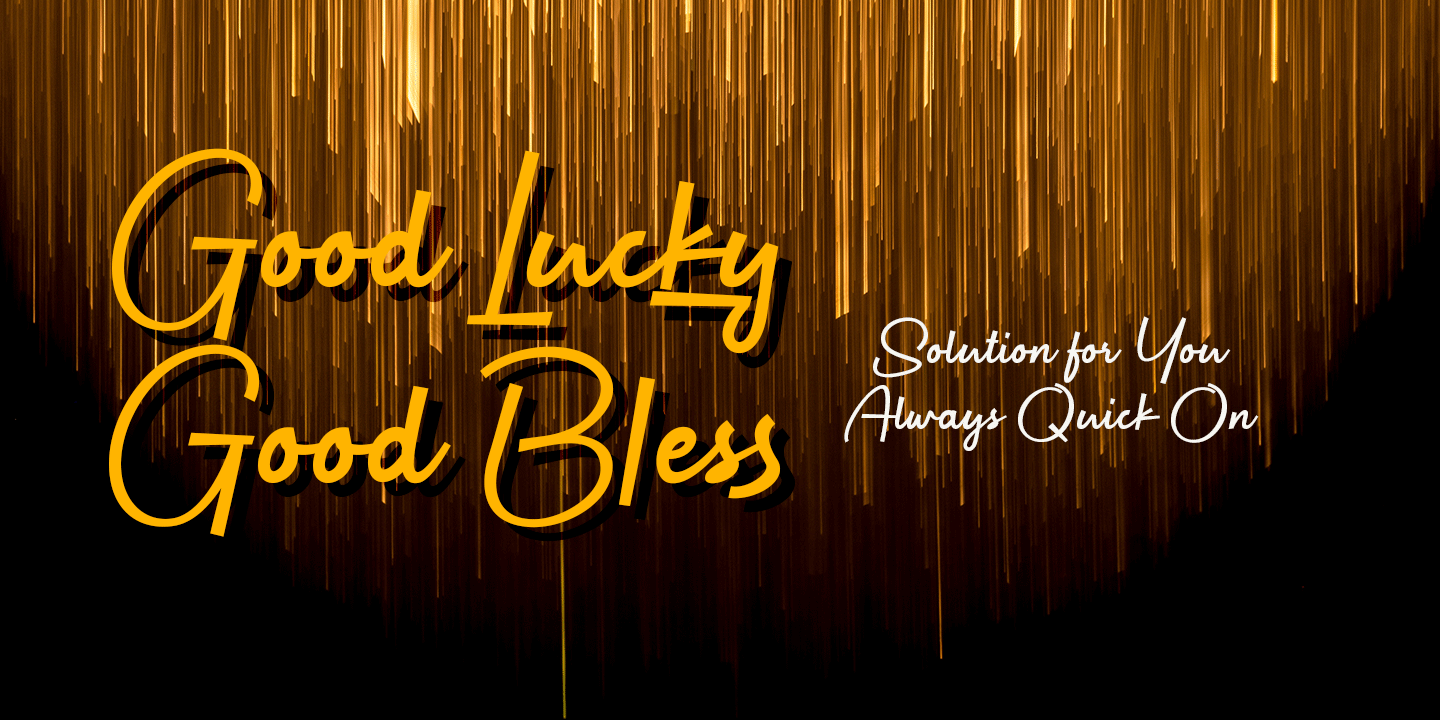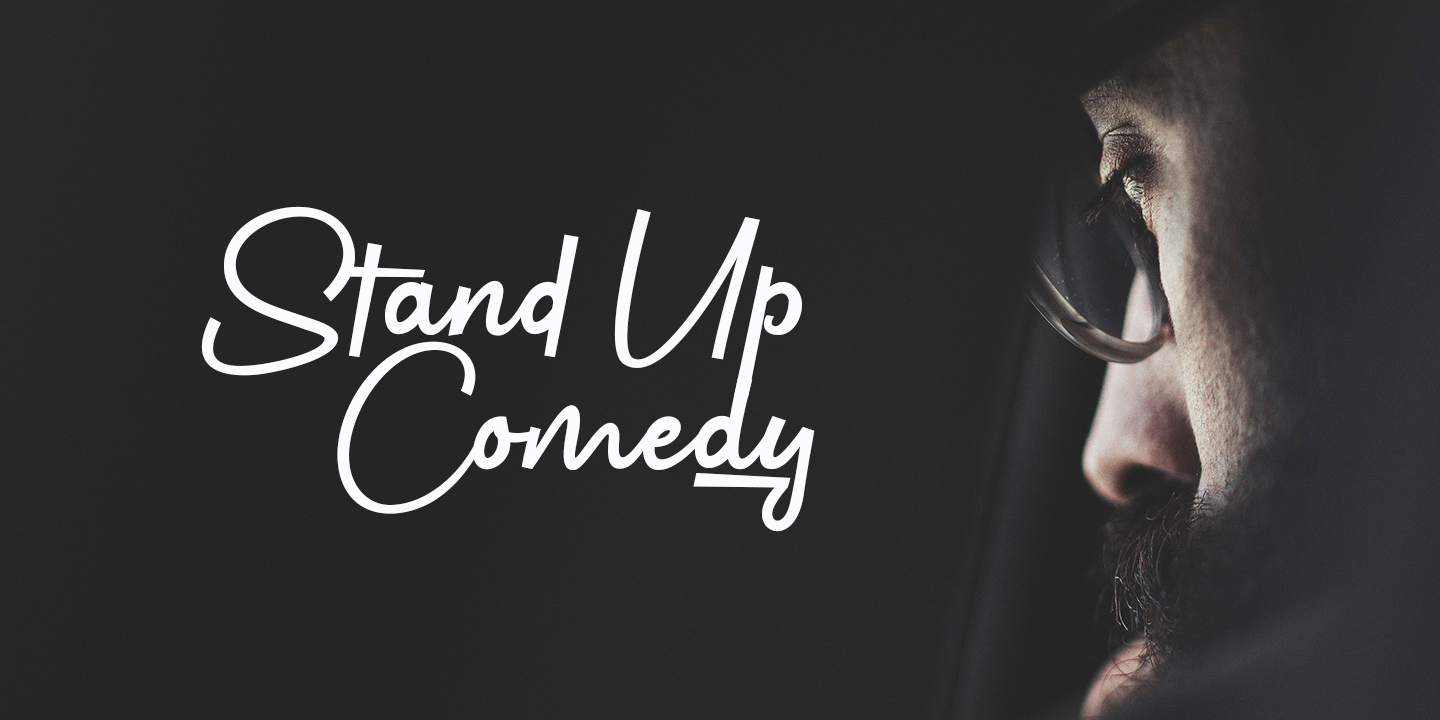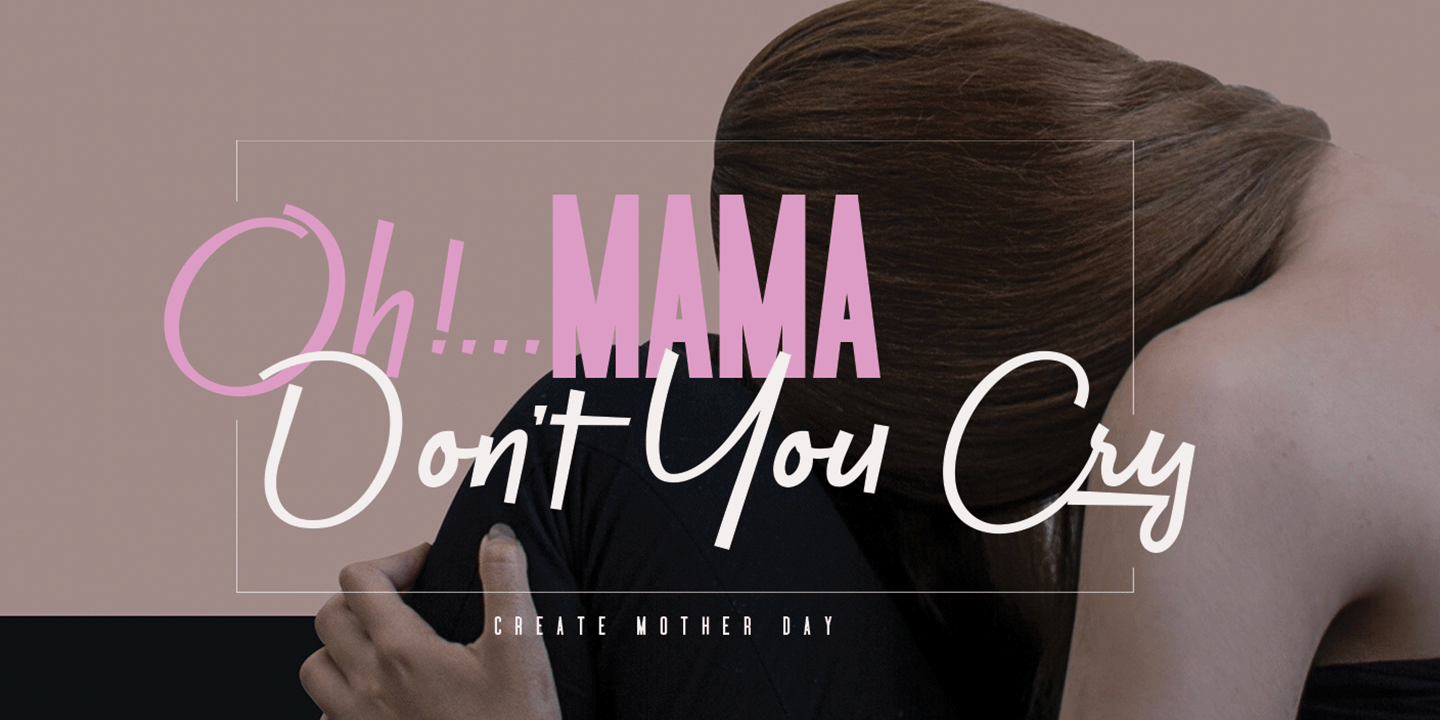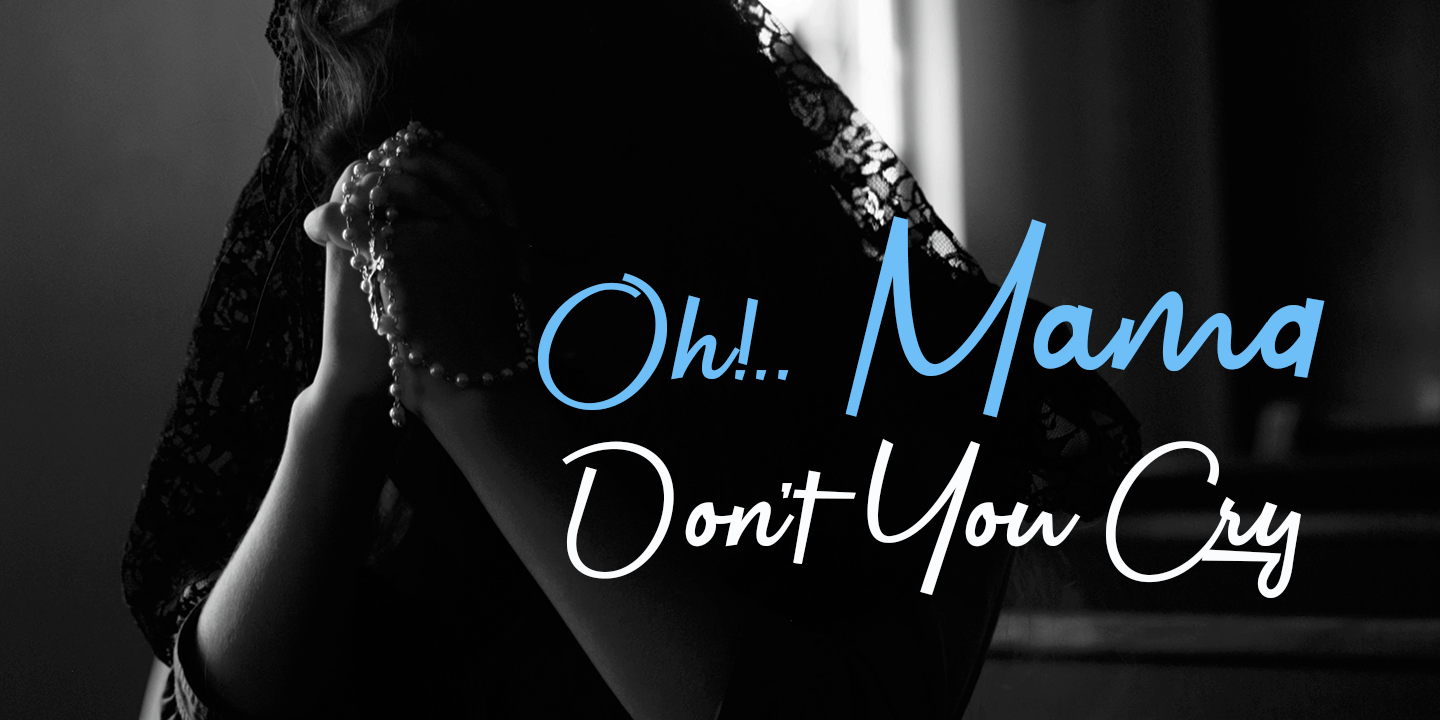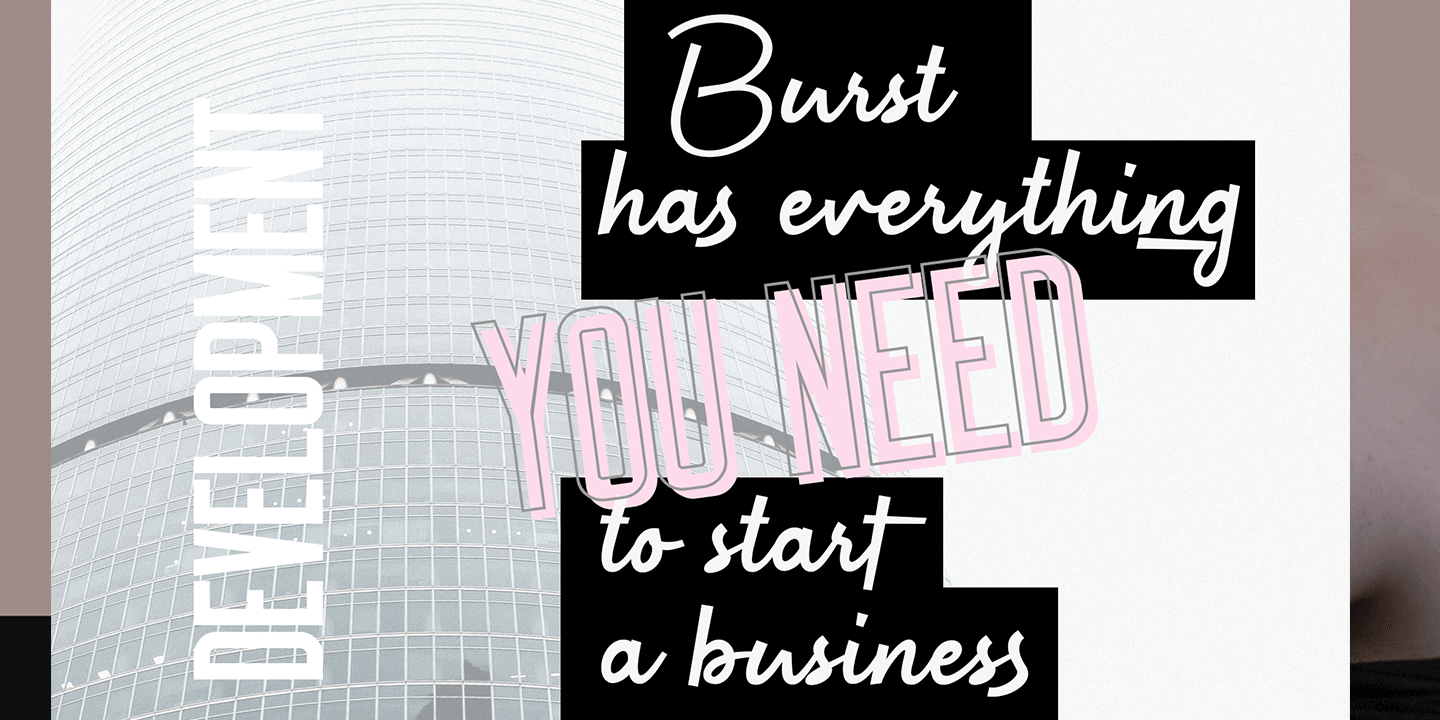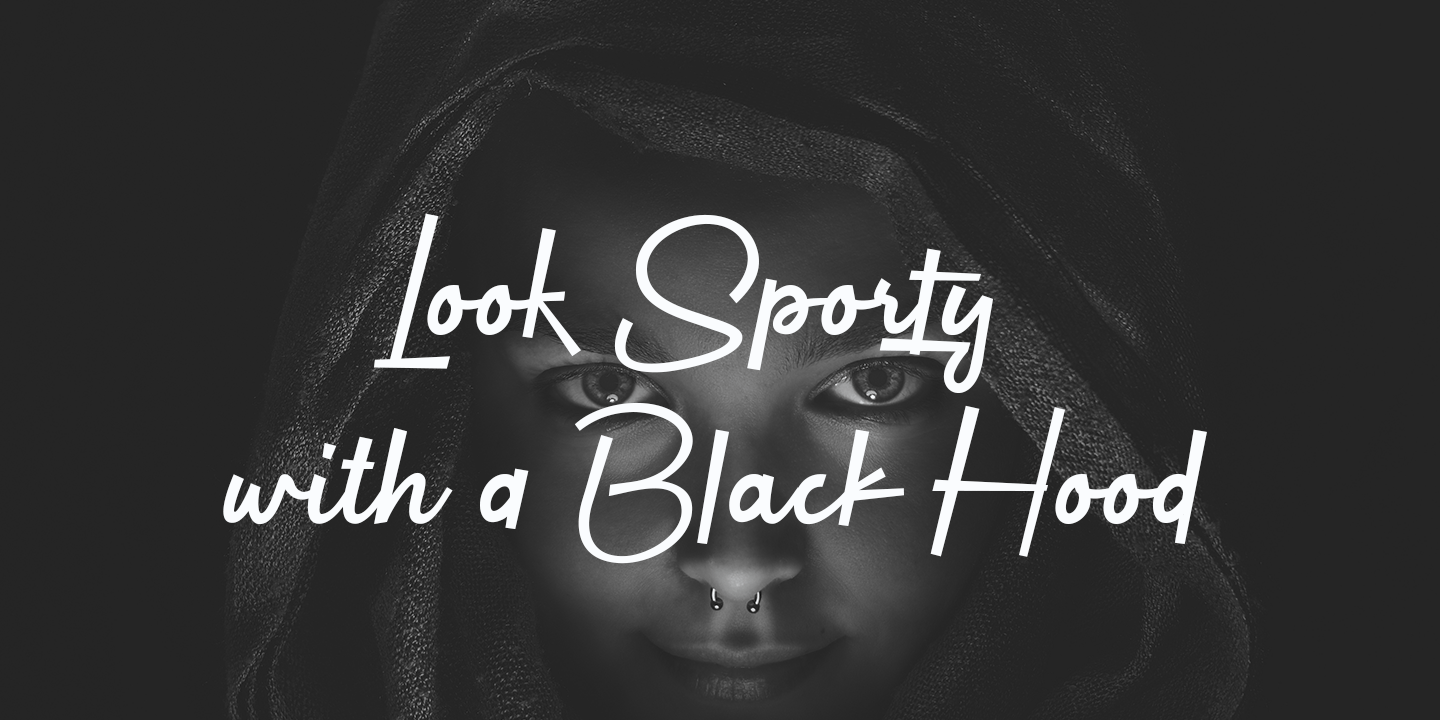
Quick On
Quick On is a script font with typical handmade, a work that is purely a result of handmade, has a natural characteristic. This is perfect for invitations, signatures, blogs, social media, business cards, product brands. Quick On has Stylistic standard, Stylistic Alternates and ligatures. OpenType features can be accessed by using OpenType smart programs such as Adobe Photoshop, Adobe Illustrator, Adobe Indesign, Corel Draw and Microsoft Office. They can also be accessed through the character map.